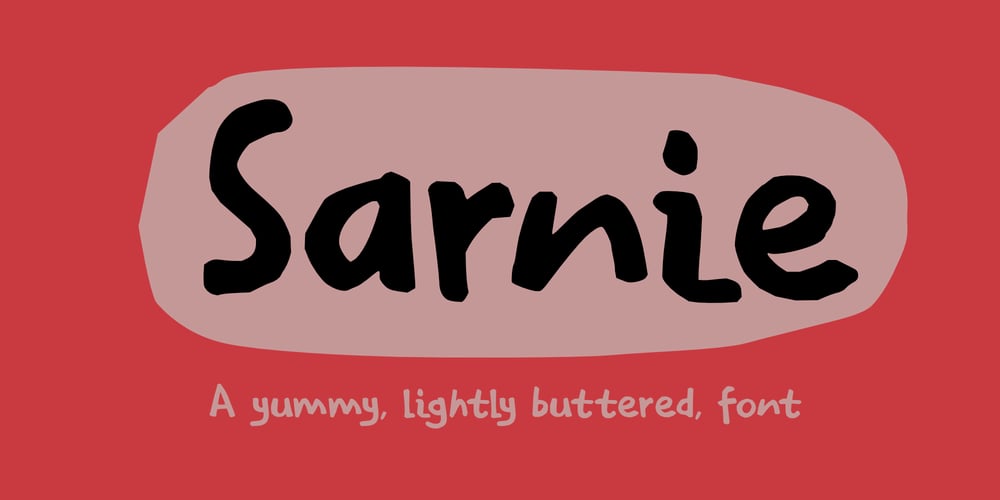
Sarnie
Sarnie font
Sarnie Font Family was designed by David Kerkhoff and published by Kitchen Table Type Foundry. Sarnie contains 2 styles and family package options. I love British slang. It is witty, a bit obscene at times and almost always conveys the message!Sarnie means sandwich. I was making myself one when I finished this font.Sarnie is a handmade font; I used a Sharpie pen to draw the glyphs.